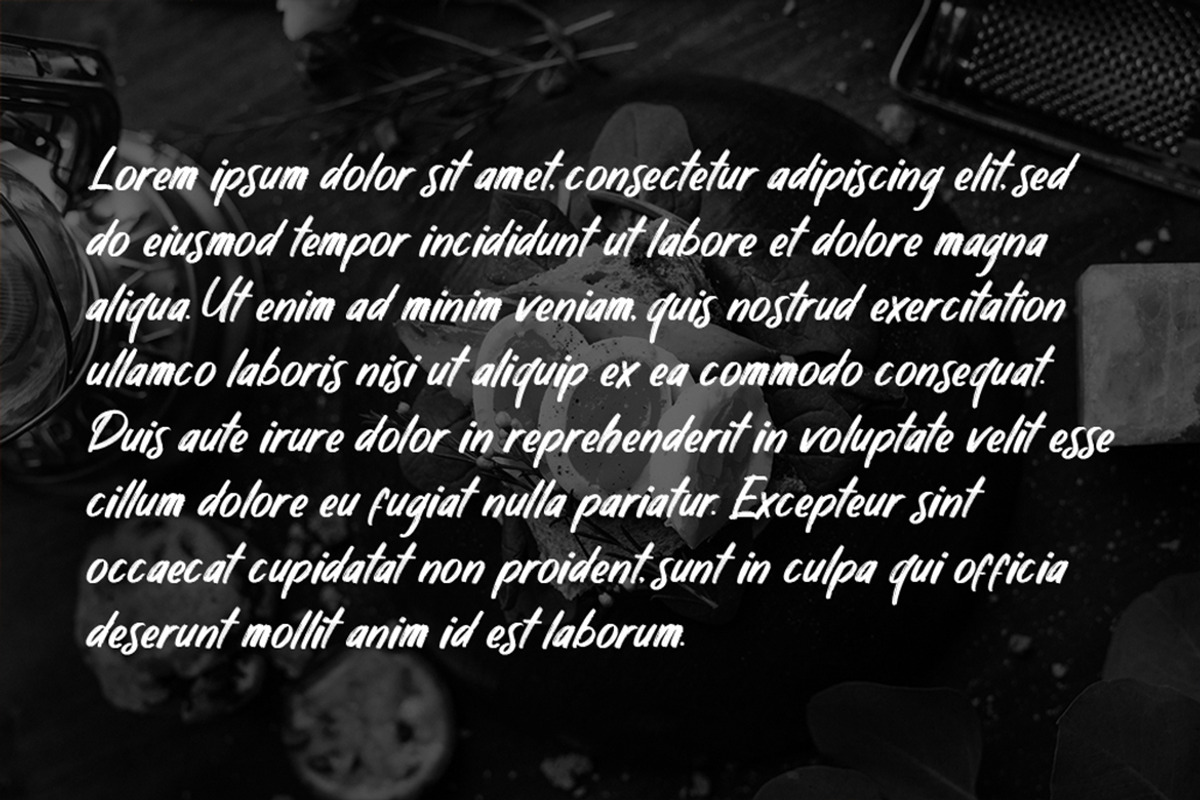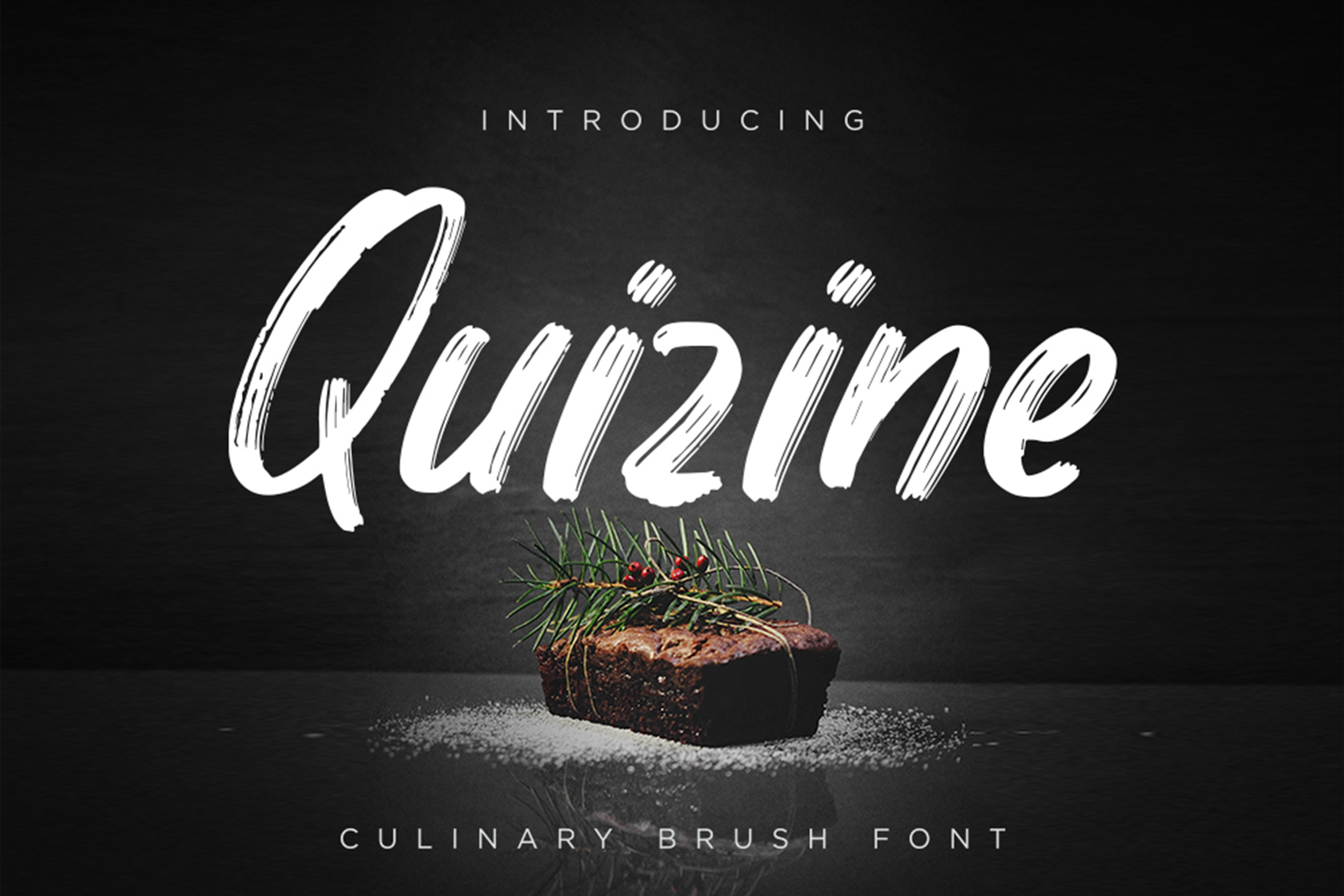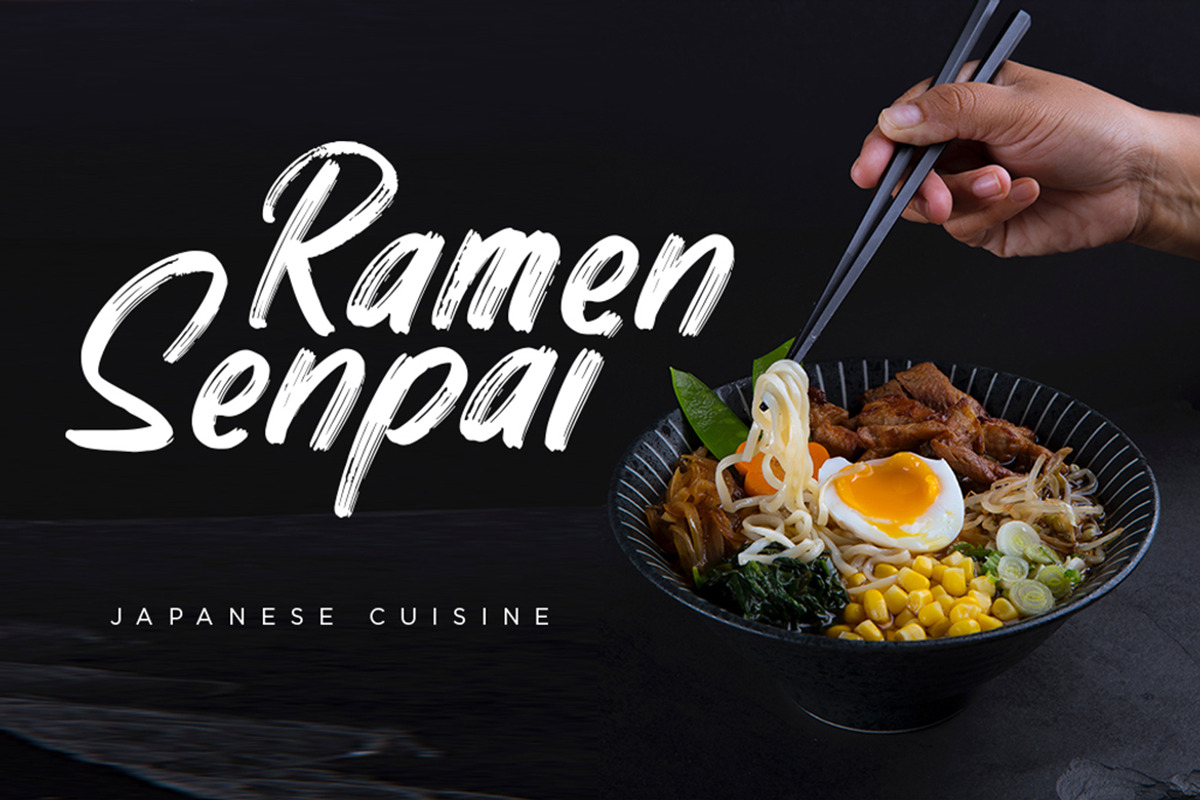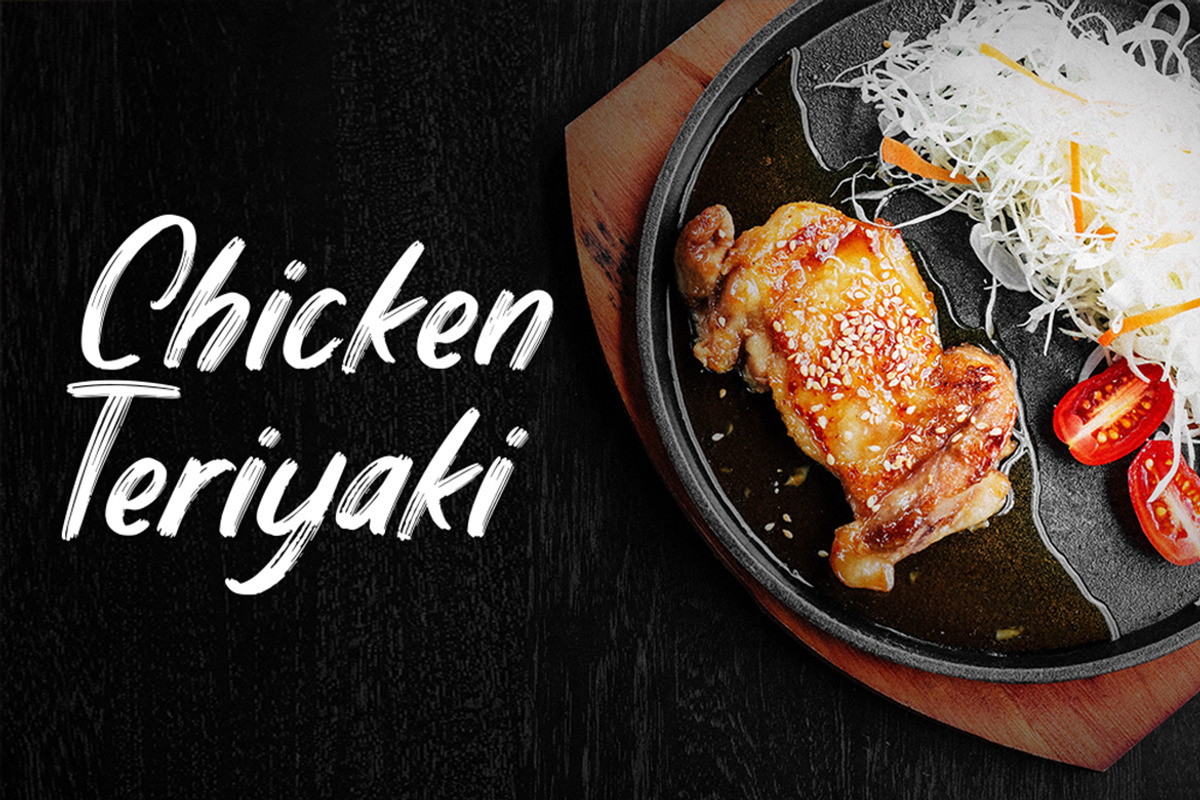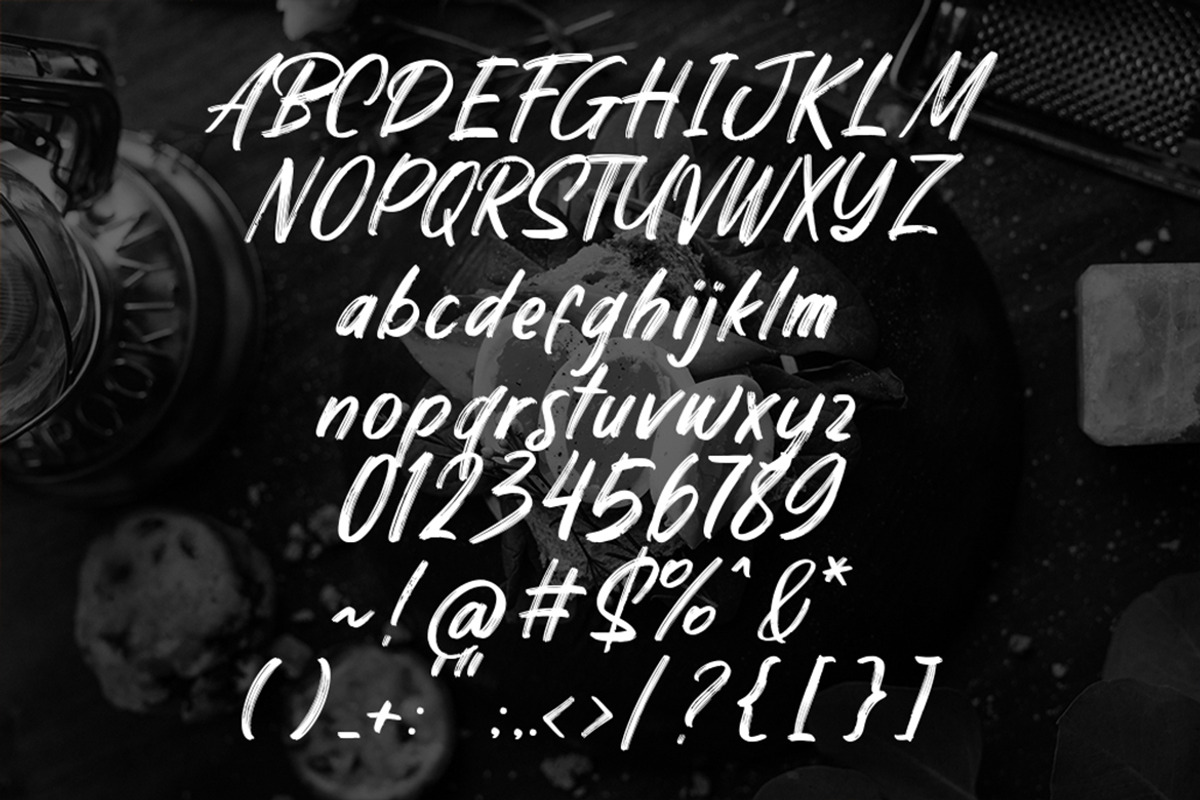
Quizine – Culinary Brush Fonts
Inspired by the Japanese restaurant’s menu with the vibe of the traditional brush stroke. Quizine tailored specifically for your Asia’s cuisine and culinary. An easy way to go for your restaurant logo, branding, menu, packaging, snack, anything you name it.